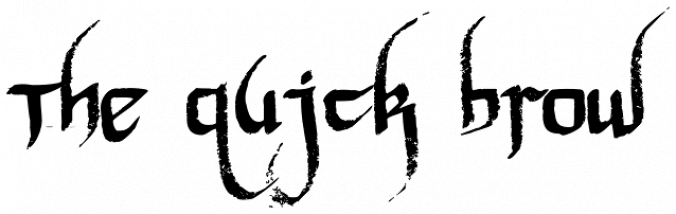
Publisher: Graffiti Fonts
Handwritten letters inspired by various ancient & modern scripts. Ballers is a “gangsterish” tag font that avoids overlap & features long acenders & decenders for an eye catching unique style.